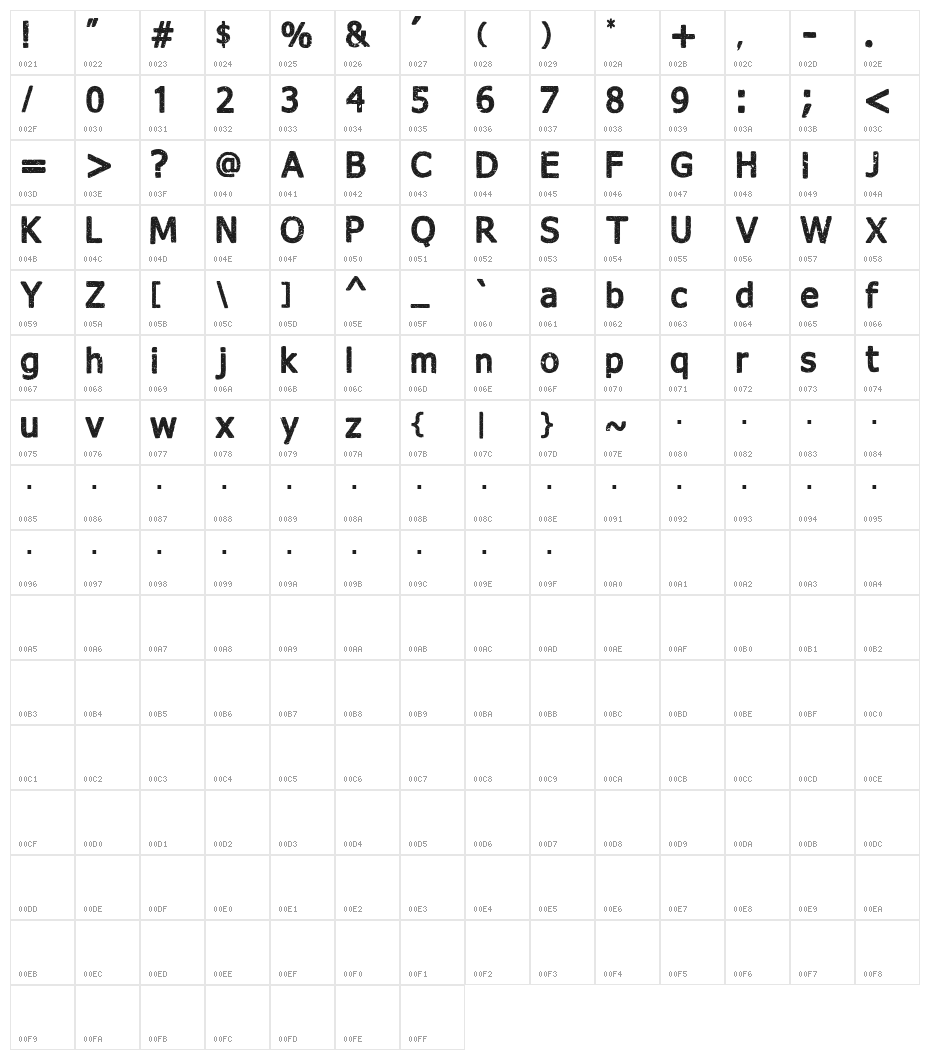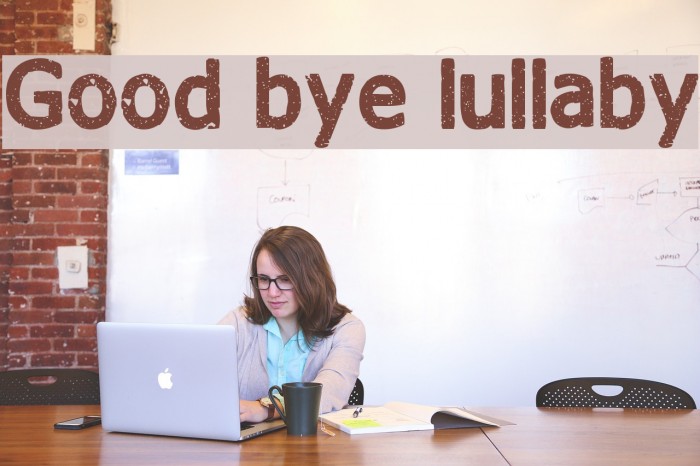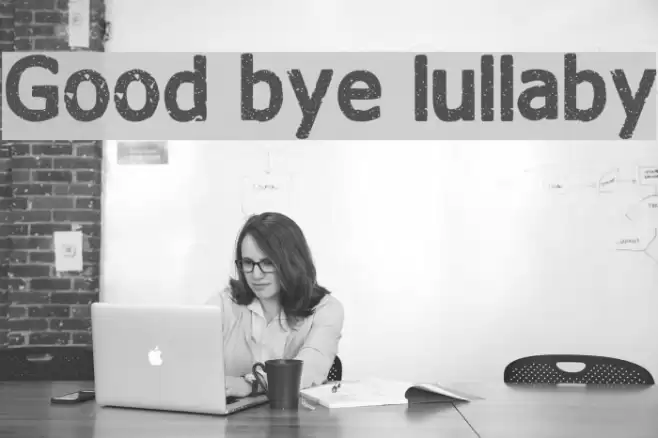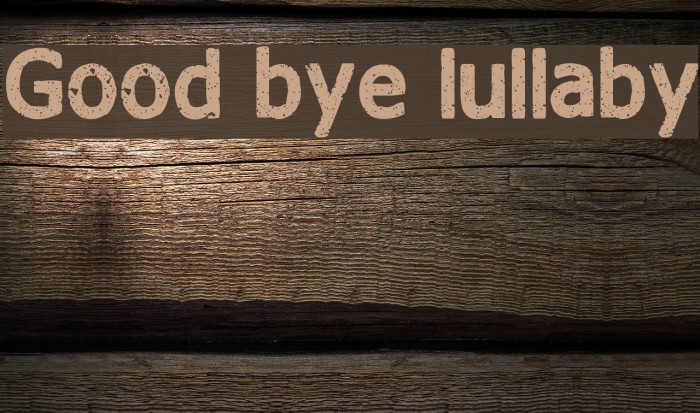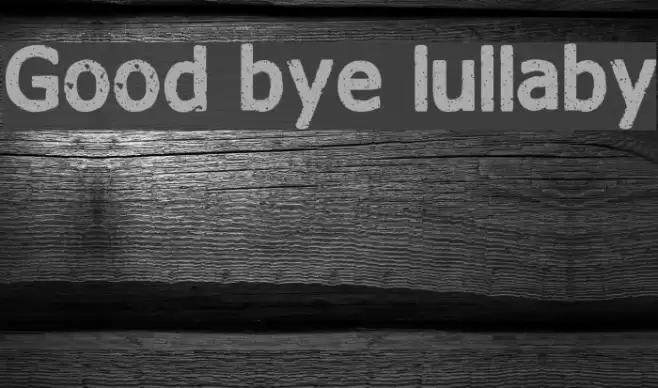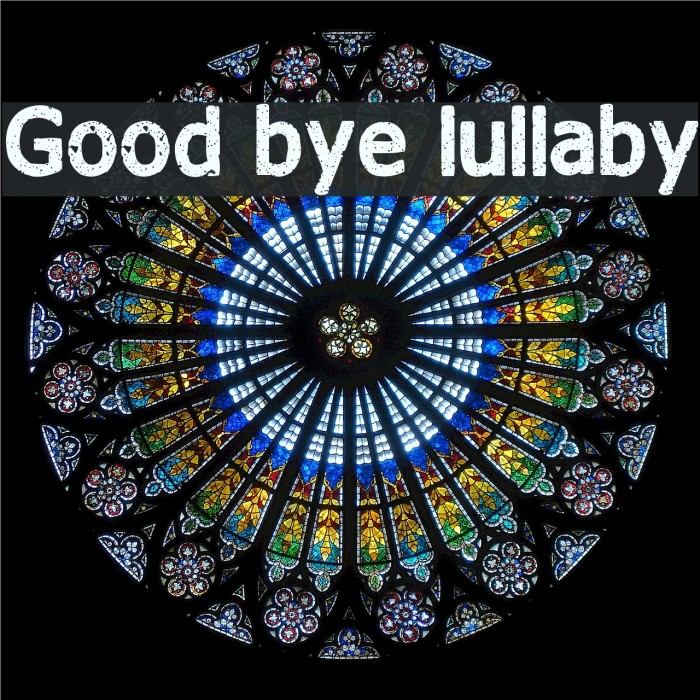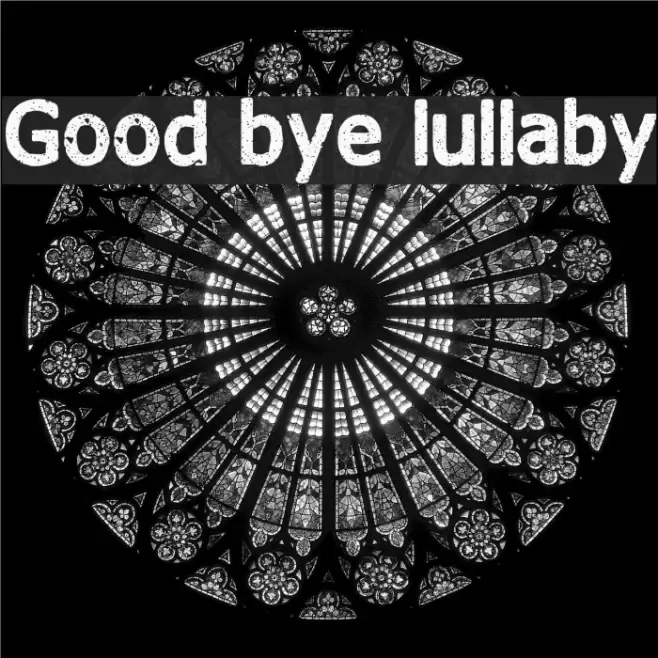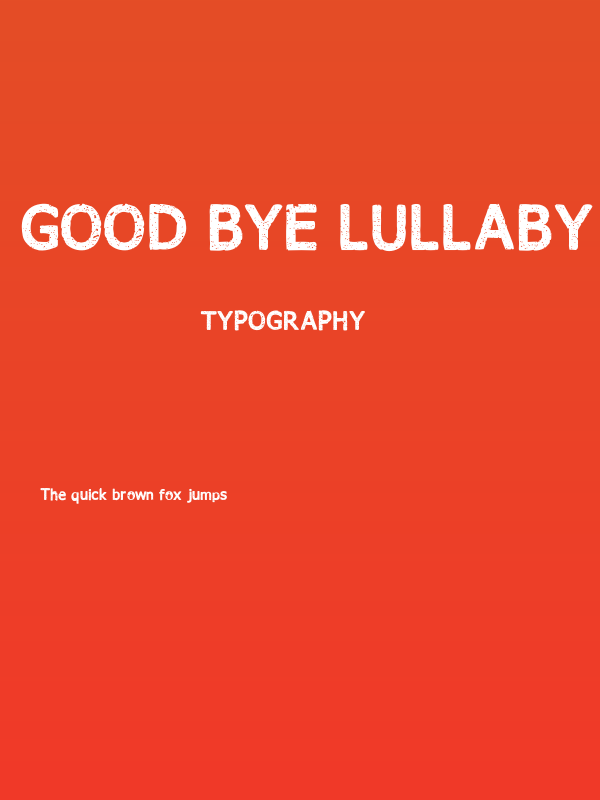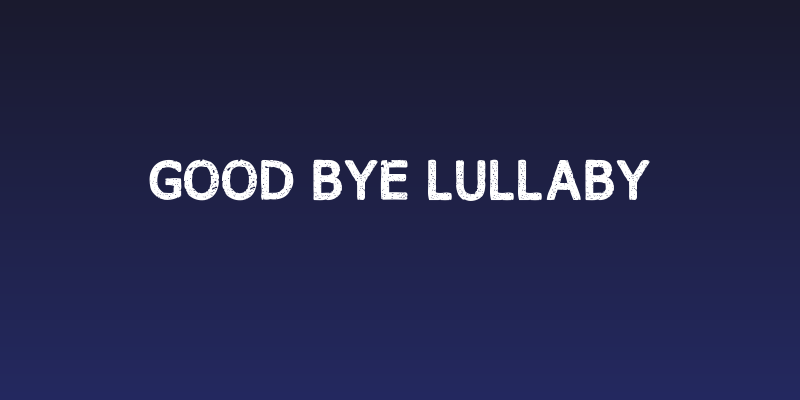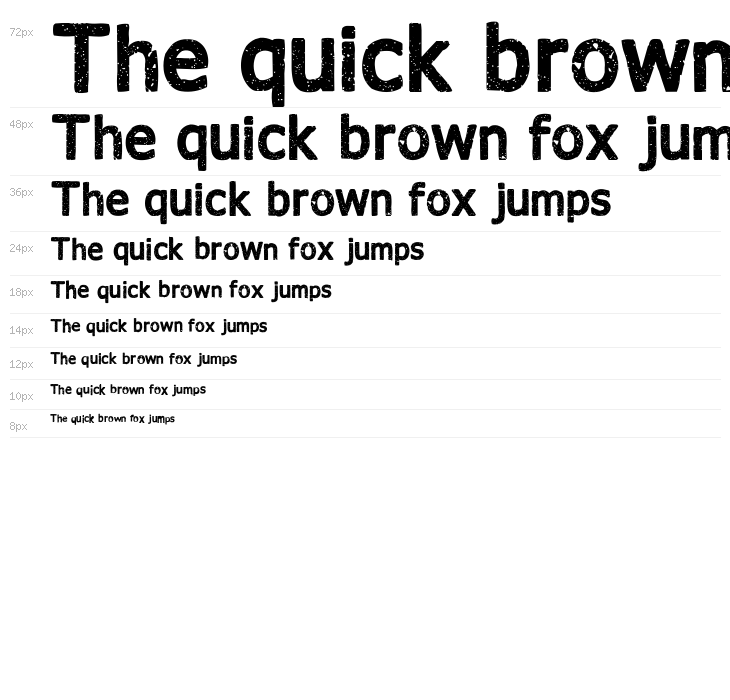
Good bye lullaby Font
Good bye lullaby Description
This font features a bold, textured style with a distressed, grunge-like appearance. The characters are sans-serif, providing a modern and edgy look. The texture gives each letter a unique, worn-out effect, making it ideal for designs that require a rugged or vintage feel. The uppercase and lowercase letters maintain consistent proportions, while the numerals and special characters complement the overall aesthetic. Its boldness ensures high visibility, making it suitable for impactful headlines and attention-grabbing designs.
Overall StyleGrunge, Vintage
Proposed ProjectsIdeal for posters, album covers, branding materials, and any project needing a bold, edgy look.